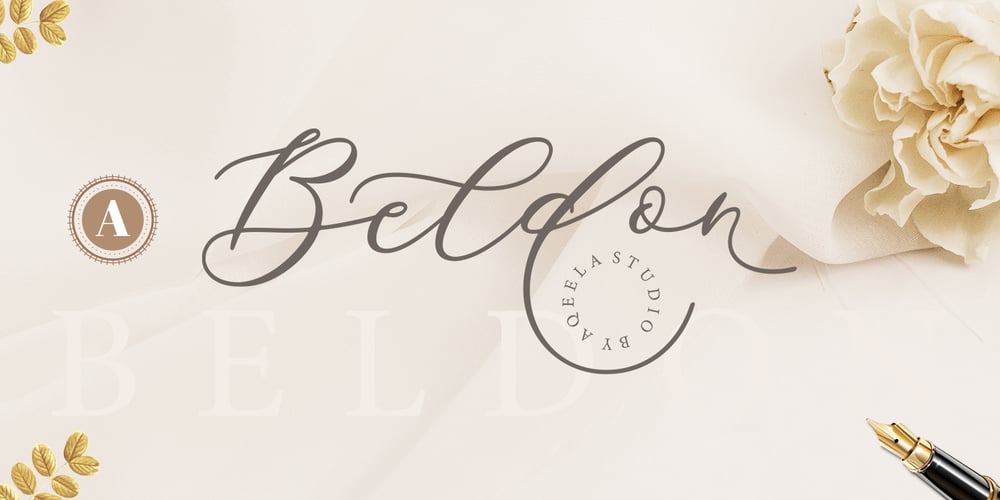
Beldon Font Family was designed by Muhammad Nasir and published by Aqeela Studio. Beldon contains 1 styles and family package options. Introducing a new beautiful calligraphy font, Beldon! It is perfect for elegant logos, upscale packaging, wedding stationery, websites, and any other projects requiring a handwritten and luxurious touch. A wide range of ligature alternates are included so that you can give your logo or name a custom, hand-calligraphy look.